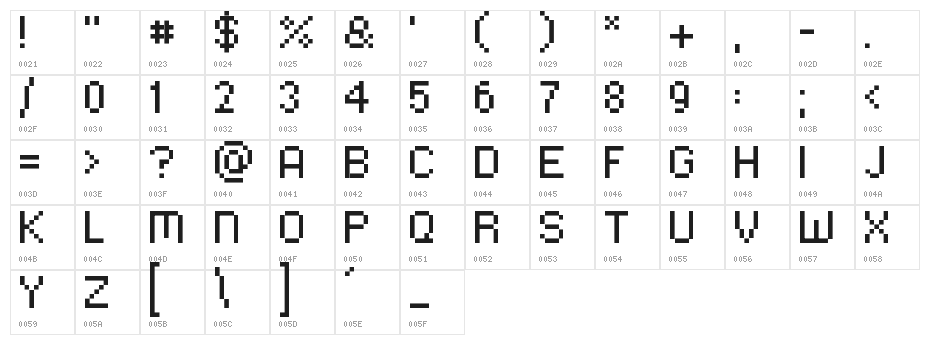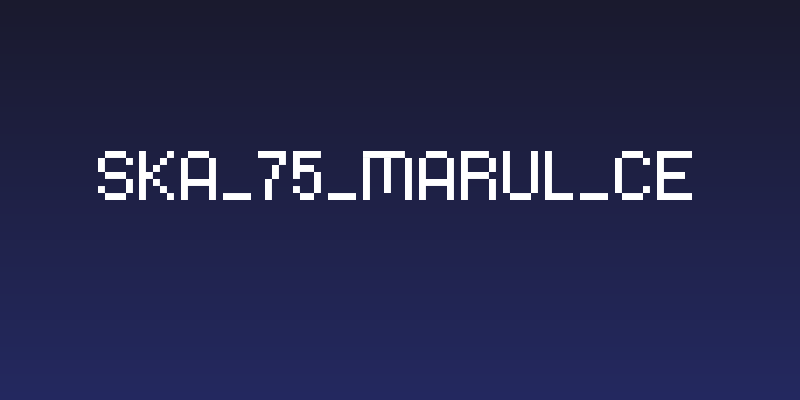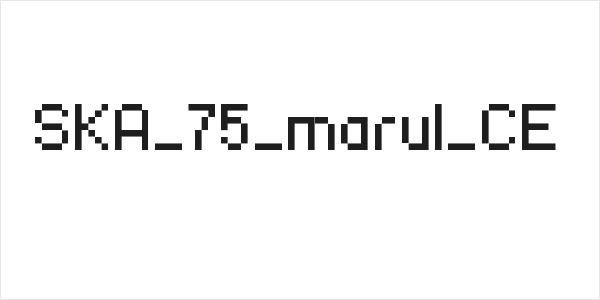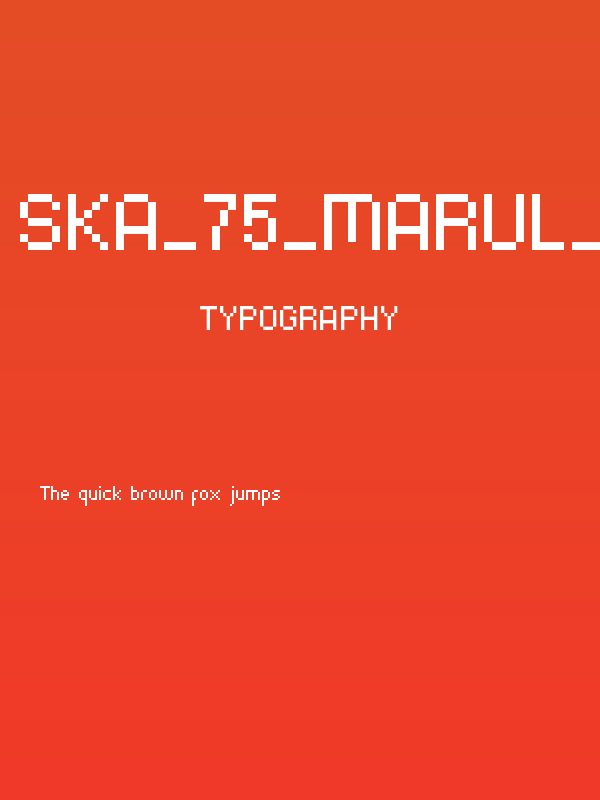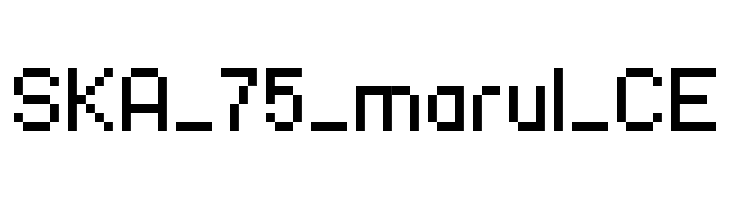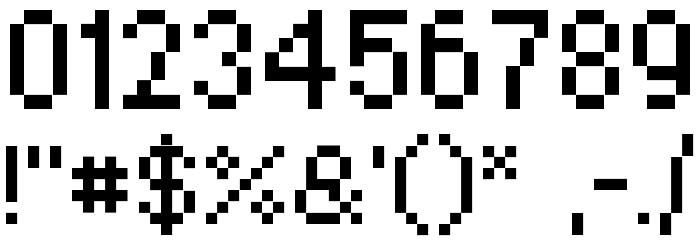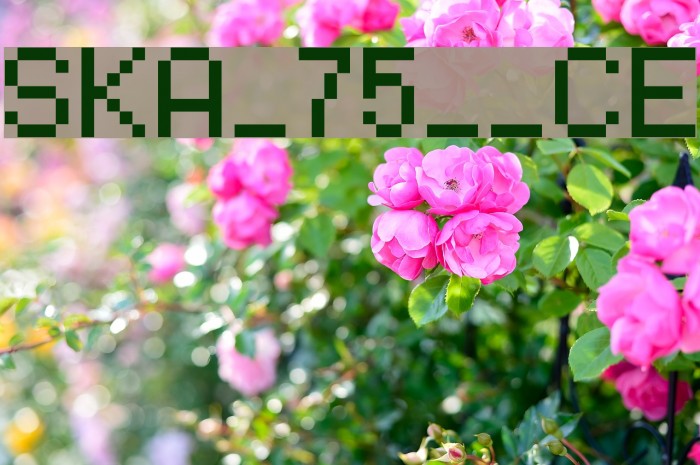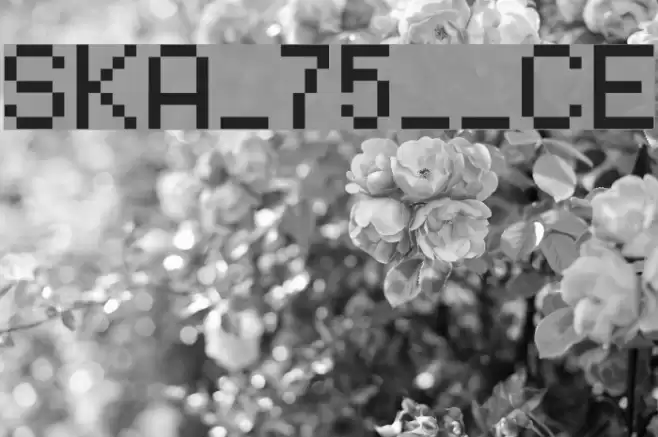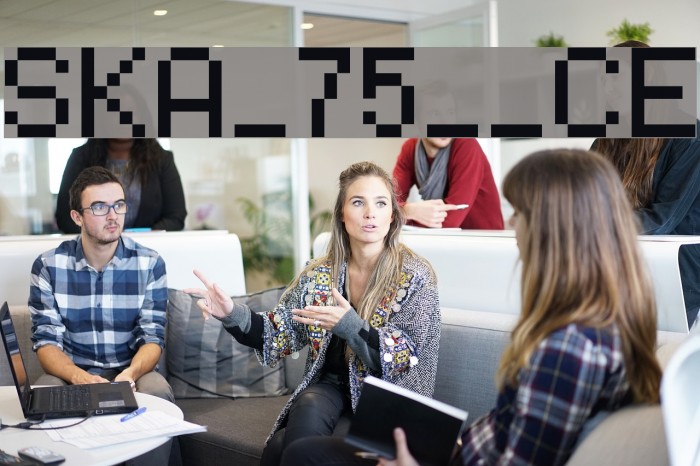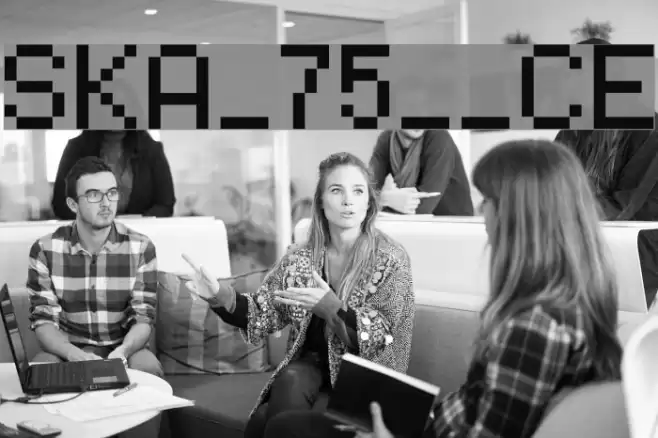
SKA_75_marul_CE Font
This font features a pixelated, blocky design reminiscent of early digital and video game typography. Each character is composed of square blocks, giving it a distinctly retro and digital aesthetic. The uppercase and lowercase letters maintain a uniform height, contributing to a monospaced feel, although the font is not strictly monospaced. The numbers and special characters follow the same pixelated style, ensuring consistency across all glyphs. This design is ideal for projects that aim to evoke nostalgia or a digital, tech-inspired theme.
| Overall Style | Retro, Digital |
| Use Case | Logos, Headlines, Digital Art |
| Proposed Projects | Ideal for video game design, tech-themed posters, digital art projects, and retro-style branding. |